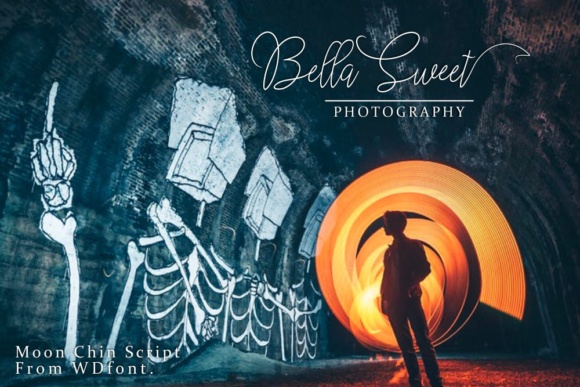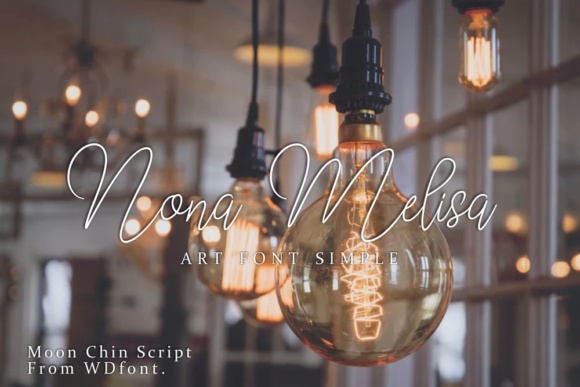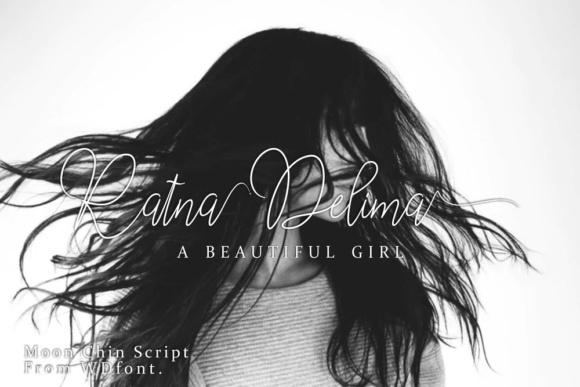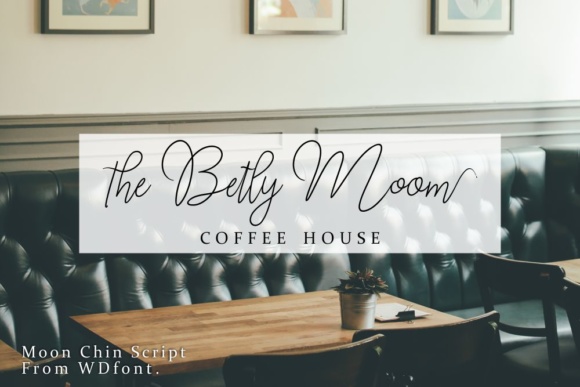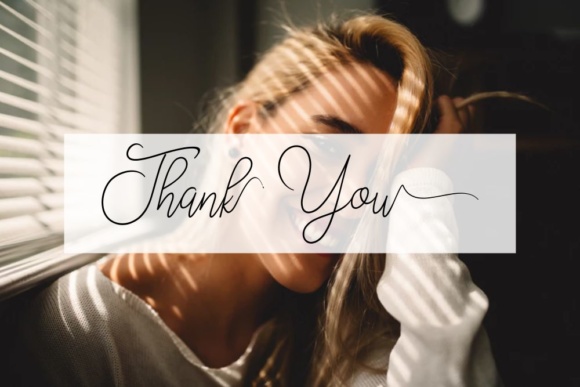
Introduction to Moon Chin Font
As designers, we’ve all been there – stuck in front of a blank canvas, struggling to find the perfect font to bring our creative project to life. But what if I told you there’s a font that can transport you to a world of elegance and sophistication, with a touch of whimsy and charm? Enter the Moon Chin Font, a stunning script font that’s about to revolutionize your design game.
This beautiful font is a masterclass in style and sophistication, with a dancing baseline that adds a playful touch to any design. Whether you’re working on a high-quality branding project or creating a design resource for a friend, the Moon Chin Font is the perfect addition to your toolkit. And the best part? It’s available for free download, making it an accessible and valuable resource for designers of all levels.
Key Features of Moon Chin Font
- Unique, hand-drawn design with a transparent background for seamless integration.
- Features a clean, elegant script with a subtle Asian flair, making it ideal for design projects.
- Perfect as a design resource for artists, designers, and writers seeking a distinctive, creative font.
Honest Review: Moon Chin Font
I recently stumbled upon the Moon Chin Font while searching for a unique design resource for my creative project. At first glance, I was drawn to its elegant and sophisticated aesthetic. As a designer, I appreciate high-quality fonts that can elevate the overall look and feel of a design.
Here are some of the things that work well for the Moon Chin Font:
- ✨ Unique and distinctive design style that sets it apart from other fonts
- ✨ High-quality resolution, suitable for both digital and print projects
- ✨ Transparent background, allowing for seamless integration with any design
However, I did encounter some limitations while using the Moon Chin Font:
- ⚠️ Limited character set, which may not be suitable for projects that require a wide range of characters
- ⚠️ Not ideal for small font sizes, as the lines may become too thin and difficult to read
Overall, I’m impressed with the Moon Chin Font’s design and quality. While it may have some limitations, it’s an excellent resource for designers looking for a unique and high-quality font for their creative projects. With a little creativity and planning, I believe this font can be a valuable addition to any design arsenal.
Tips for Getting the Most Out of Moon Chin Font
Experiment with different font sizes, colors, and combinations to get the most out of the Moon Chin Font. You can also use it in conjunction with other design elements, such as images or shapes, to create a visually appealing design.
Common Use Cases for Moon Chin Font
The Moon Chin Font is suitable for a variety of creative projects, including logos, social media graphics, business cards, and presentations. Its high-quality design and transparent background make it an ideal choice for any design project that requires a unique and creative touch.